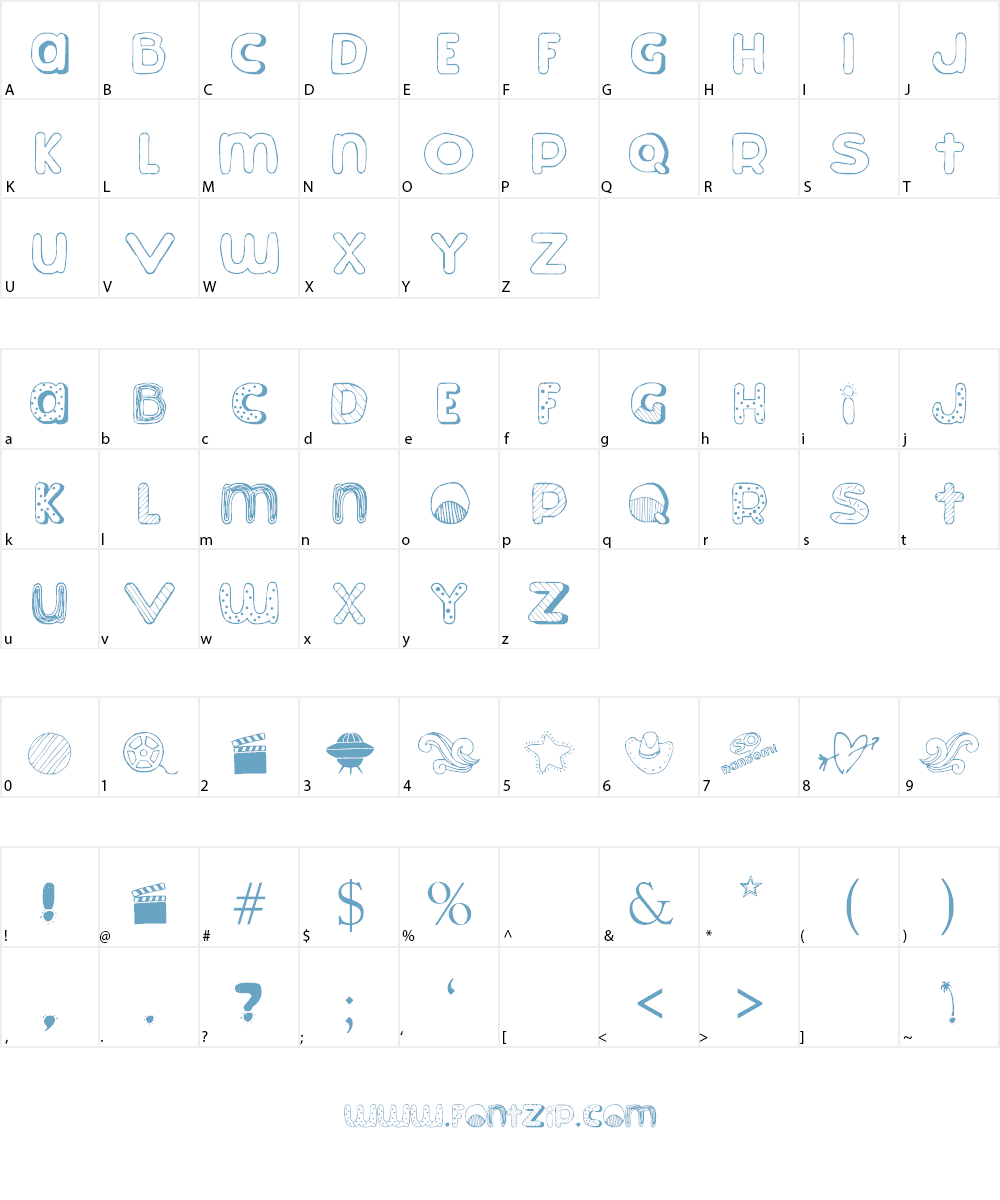
Being a huge fan of Sonny With A Chance, I created a font based on the season two logo of "So Random!" (The comedy show within the series) The letters are so fun and varied, fitting perfectly with the show's theme of randomness. I do not own any rights nor the original design this font was based off of.